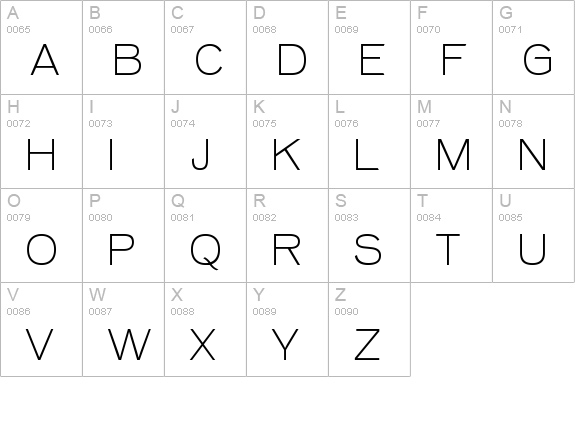
VonnesTTLight Font Details
VonnesTTLight font is a beautiful typeface that exudes elegance and sophistication. With its graceful curves and delicate lines, this font is perfect for adding a touch of refinement to any design project. Whether it's for a wedding invitation, a logo, or a website, VonnesTTLight font will make your text stand out with its timeless appeal. What makes VonnesTTLight font even more enticing is that it is available for free! Yes, you read that right. You can download this stunning font without spending a dime. Simply head over to FontsMarket.com, and you will find the link to freely obtain VonnesTTLight font. Not only is VonnesTTLight font visually pleasing, but it is also highly versatile. It comes with a wide range of characters, including uppercase and lowercase letters, numbers, punctuation marks, and special symbols. This extensive character set ensures that you have all the tools you need to create captivating designs that leave a lasting impression. Furthermore, VonnesTTLight font is incredibly easy to work with. Its clean and well-designed glyphs ensure legibility, making it a great choice for both print and digital mediums. Whether you are a professional designer or a beginner, you will find this font a joy to use. So why wait? Download VonnesTTLight font today and elevate your designs to a whole new level. With its elegance, versatility, and the fact that it is freely available at FontsMarket.com, this font is a must-have for any design enthusiast.